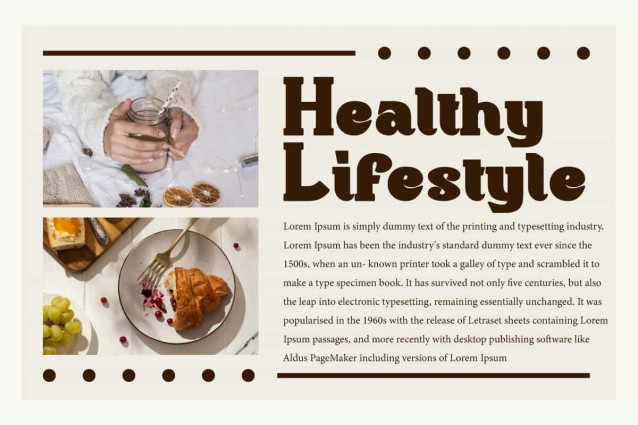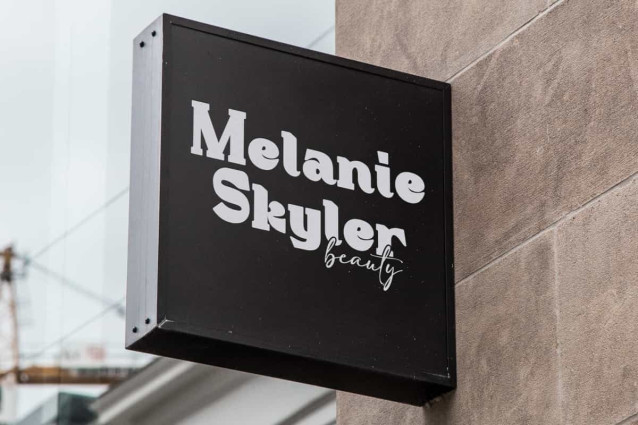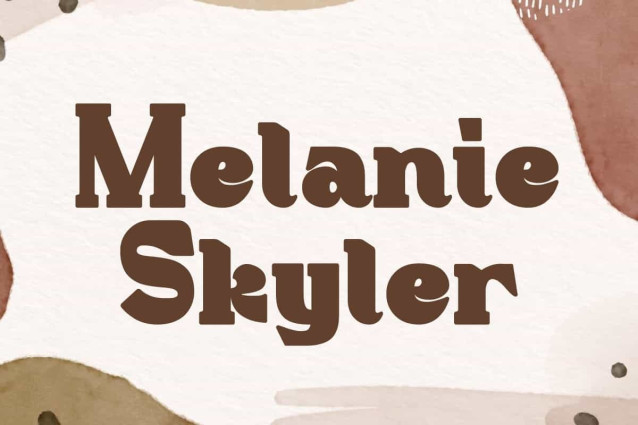
Melanie Skyler Font
Melanie Skyler Font is a playful fat fun cartoon inspired display serif font that combines a retro feel with a playful modern style. This font will be perfect for various projects, such as signage, branding image, brochure, label, logo design, magazine cover, mockup template, packaging, poster, quote, stationery, website, and more!
Melanie Skyler Font includes a complete set of Uppercase and Lowercase Basic Characters, Numbers, Punctuation, and Symbol. This font has bold letter shape that give a strong, confident, yet friendly and pleasant character. Making it a perfect choice for a variety of fields, such as advertising, beauty product, fashion, cafe, craft, event or wedding organizer, photography, real estate, restaurant, spa, travel, and so on.